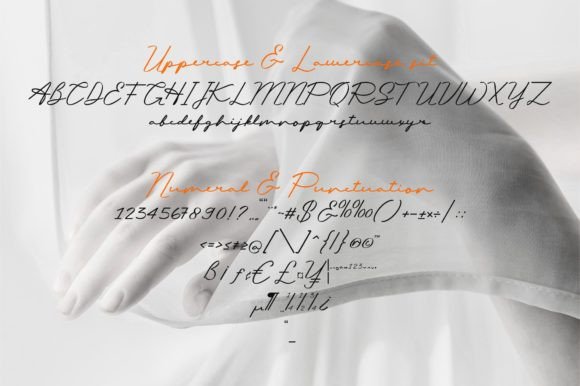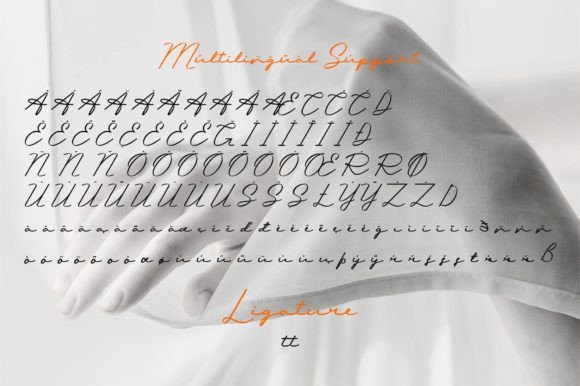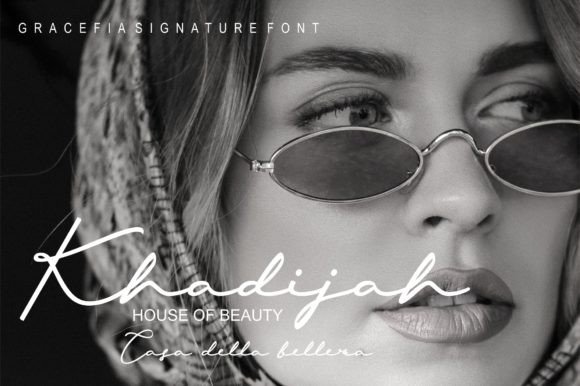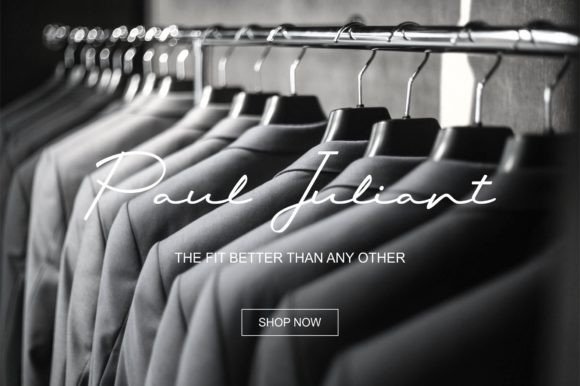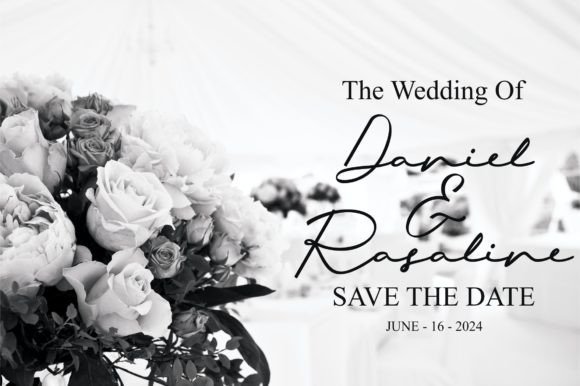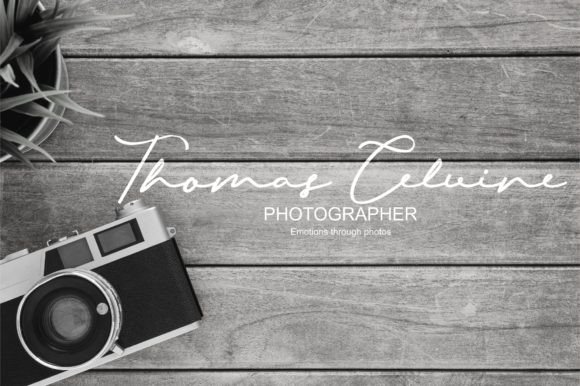
Introducing Gracefia Font: Elevate Your Design with Elegance
In the world of design, typography plays a crucial role in conveying the tone and aesthetic of a project. For designers and crafters seeking to add a touch of luxury and sophistication to their work, the Gracefia font is an excellent choice. This elegant handwritten font is designed to make a lasting impression, making it perfect for a wide range of applications, from branding and logos to wedding invitations and book covers.
The Characteristics of Gracefia Font
Gracefia is a beautifully crafted handwritten font, characterized by its consistent strokes that produce a sense of fluidity and harmony. This attention to detail ensures that the font looks polished and refined, making it ideal for designs where a high-end feel is desired. The elegant nature of Gracefia allows it to bring a touch of class to any project, setting it apart from more generic fonts.
Versatility of Gracefia Font
One of the key benefits of the Gracefia font is its versatility. It is suitable for a wide range of design projects, including:
• Branding: Establish your brand identity with a sophisticated and memorable font.
• Logos: Create a lasting impression with a logo that exudes elegance and refinement.
• Magazines: Add a touch of luxury to your magazine design, making it stand out from the crowd.
• Handcrafts: Perfect for crafters who want to add a personal, elegant touch to their products.
• Quotes: Make inspirational quotes even more impactful with a beautiful and elegant font.
• Book Covers: Draw readers in with a captivating book cover design that showcases your literary work in the best possible light.
• Wedding Invitations: Set the tone for a sophisticated and memorable wedding celebration with elegant invitations.
Why Choose Gracefia Font?
With so many fonts available, why should designers and crafters choose Gracefia? Here are a few compelling reasons:
• Elegance: Gracefia brings an unmatched level of elegance to any design project.
• Readability: Despite its elegant nature, Gracefia remains highly readable, making it suitable for both headings and body text.
• Uniqueness: Stand out from the crowd with a font that is both distinctive and memorable.
• Easy to Use: Gracefia is easy to integrate into your design workflow, allowing you to focus on creativity rather than technical challenges.
Tips for Using Gracefia Font Effectively
To get the most out of the Gracefia font, consider the following tips:
• Pair with Complementary Fonts: For maximum impact, pair Gracefia with fonts that complement its elegant style. A sans-serif font for body text can create a beautiful contrast.
• Experiment with Colors: While Gracefia looks stunning in black or dark colors, don’t be afraid to experiment with other colors to match your brand or design theme.
• Adjust Letter Spacing: Fine-tune the letter spacing to ensure optimal readability and aesthetic appeal for your specific design.
The Gracefia font is a powerful tool for designers and crafters looking to elevate their projects with a touch of elegance and sophistication. Its versatility, readability, and unique style make it an excellent choice for a wide range of applications. Whether you’re working on a branding project, designing wedding invitations, or crafting a book cover, Gracefia is sure to make a lasting impression. Embrace the beauty of Gracefia and take your designs to the next level.